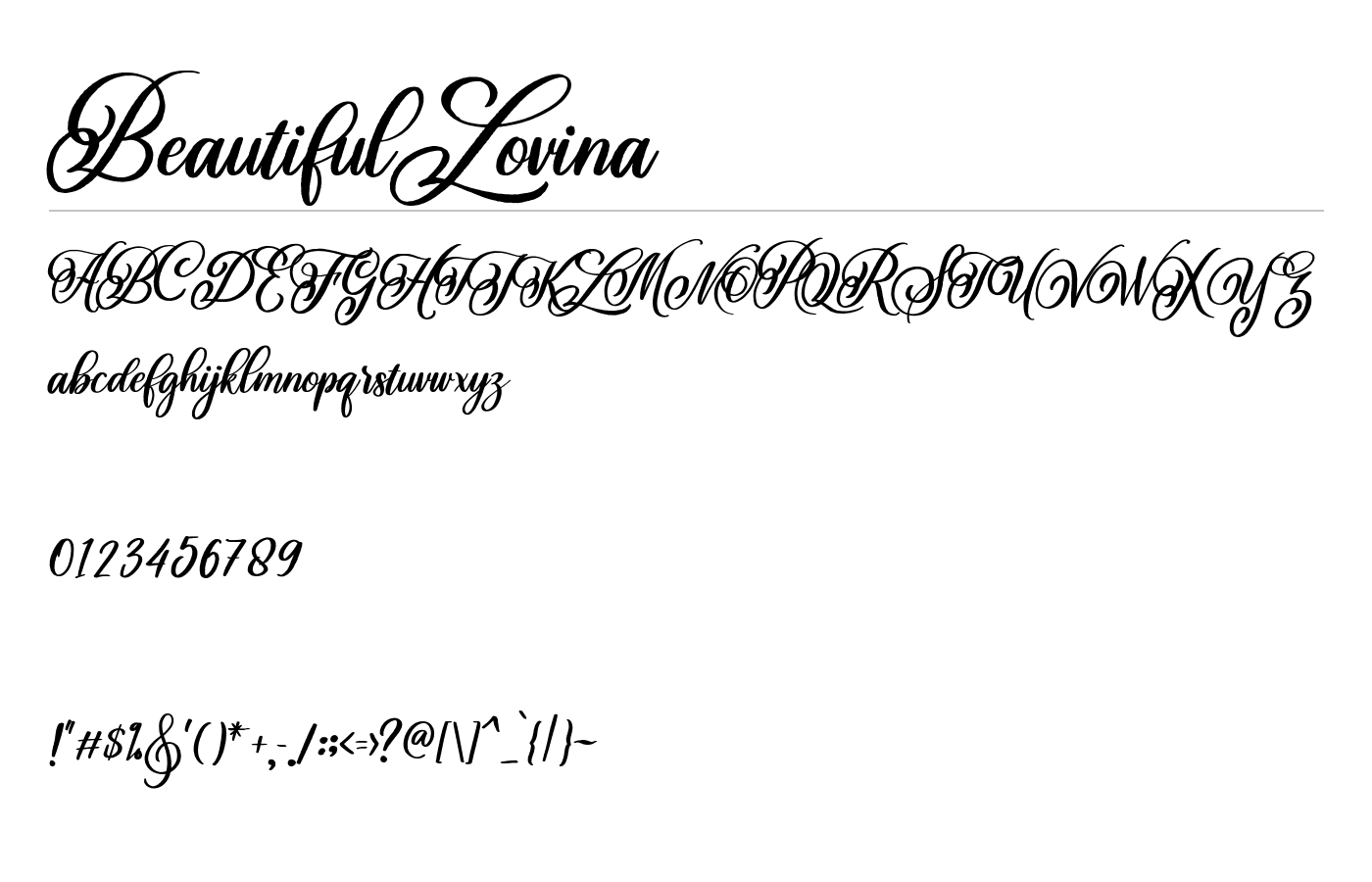
Beautiful Lovina is an elegant script font featuring flowing, ornamental letterforms with high contrast between thick and thin strokes. Its intricate, decorative uppercase characters and graceful lowercase letters create a refined and luxurious feel, perfect for wedding invitations, branding, and sophisticated editorial design. This font works best in display settings where its delicate beauty can shine and add a touch of classic charm.
Beautiful Lovina Font
About Beautiful Lovina Font
| Font family | Beautiful Lovina Font |
| Designer | Alit Suarnegara |